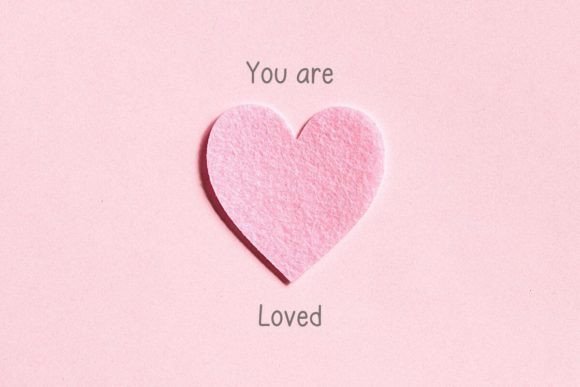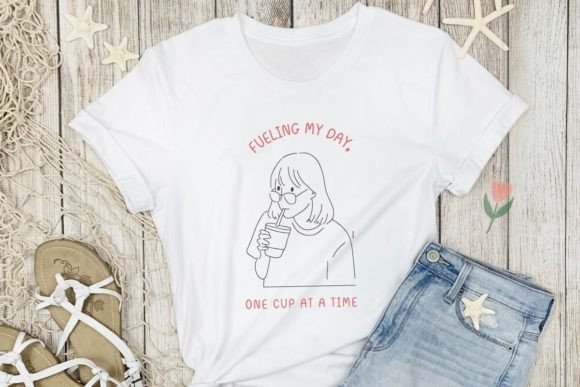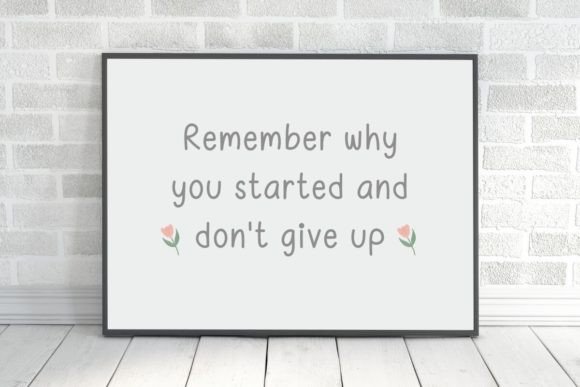
About the Neat and Clean Font
Add a touch of class to your work with the Neat and Clean Font, a truly exceptional typeface. Neat and Clean is a cute and sweet handwritten font. This font is a harmonious marriage of neat lines and clean curves, making it ideal for a wide range of applications.
Whether you’re designing invitations, greeting cards, or creating social media graphics, “Neat and Clean Font” adapts seamlessly to any project, adding a touch of refinement.
Its friendly, approachable style makes it perfect for projects requiring a touch of handwritten charm, such as wedding invitations, greeting cards, or branding for artisanal food products. It works well in short headlines and quotes, adding a personal touch to social media posts or short marketing materials. However, its informal nature makes it less suitable for body text or large blocks of content. Legibility suffers in smaller sizes or extended use.
Neat and Clean pairs well with clean sans-serif fonts like Lato or Montserrat for a balanced contrast between the handwritten feel and modern readability. For a more playful approach, consider pairing it with a rounded geometric sans-serif such as Poppins. Avoid pairing it with overly ornate or decorative fonts, which could clash with its simple elegance.
The font’s core personality is best described as friendly and approachable, conveying a sense of warmth and approachability. It’s not suitable for projects needing a strong, authoritative tone; its strength lies in its gentle, hand-drawn aesthetic.